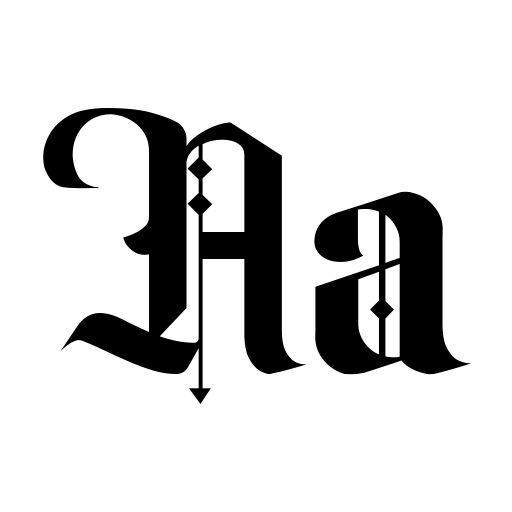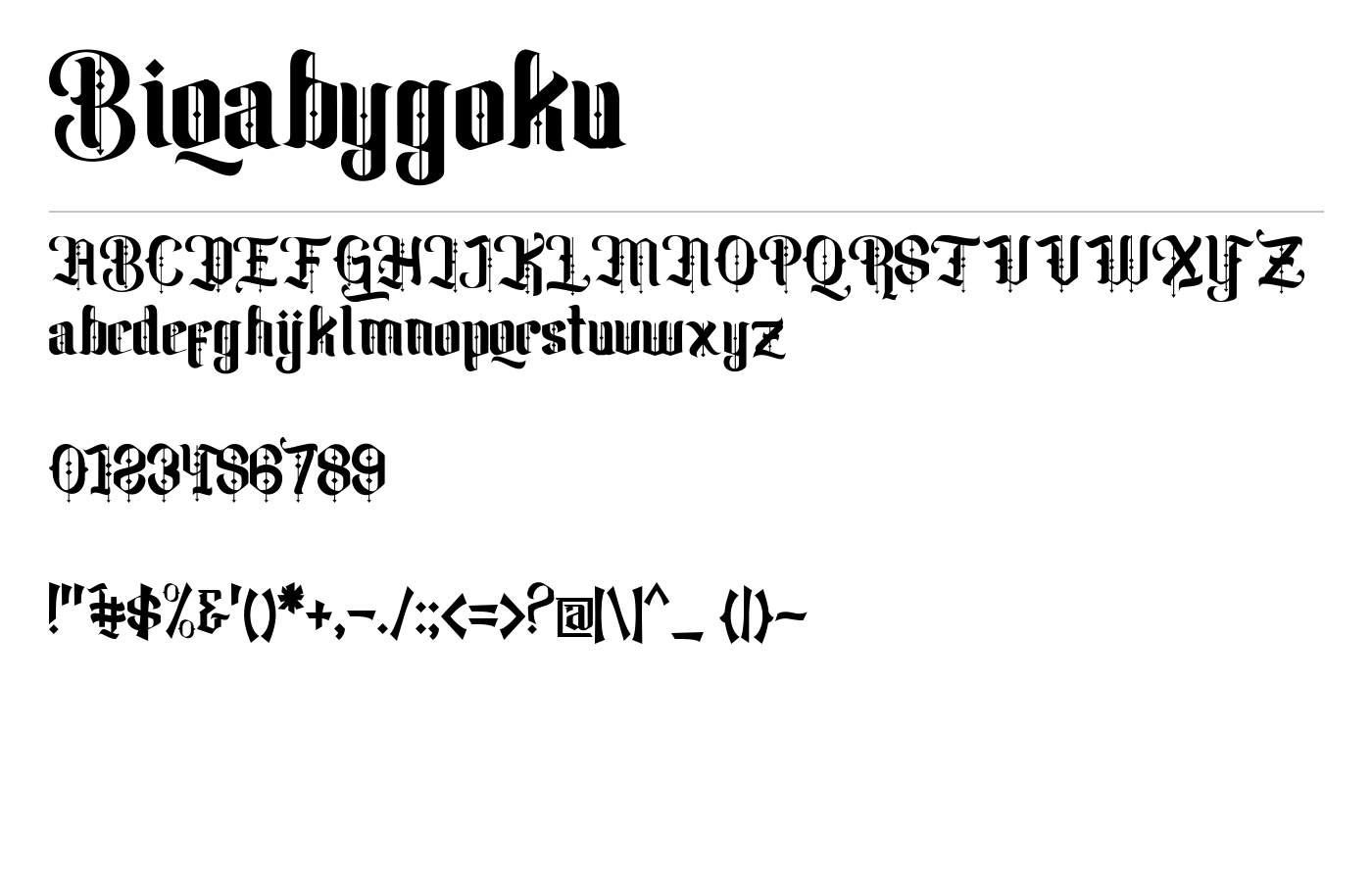
Biqabygoku is a bold blackletter-style font with strong vertical strokes and intricate decorative details, evoking a sense of tradition and gothic elegance. Its sharp, condensed forms and unique letter shapes make it ideal for striking headlines, logos, or branding projects that aim to convey a vintage or medieval atmosphere with a modern twist. This font works best in display uses where its distinct personality can shine without sacrificing readability.
Biqabygoku Font
About Biqabygoku Font